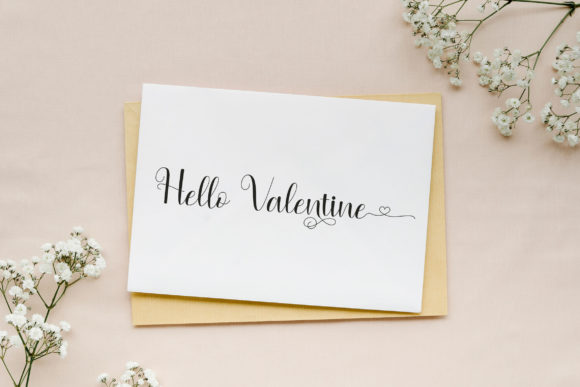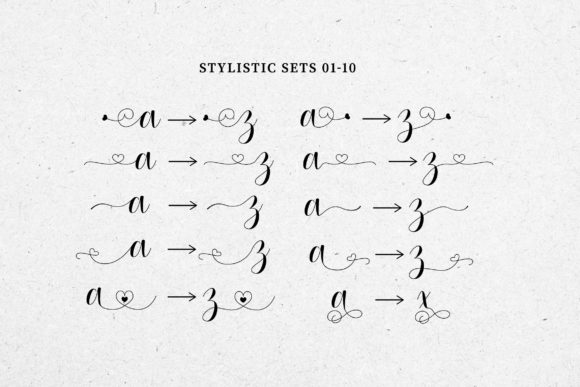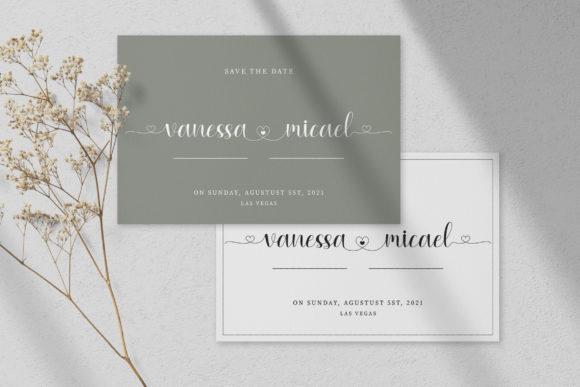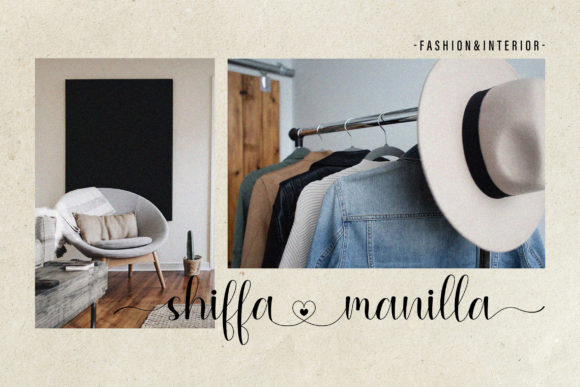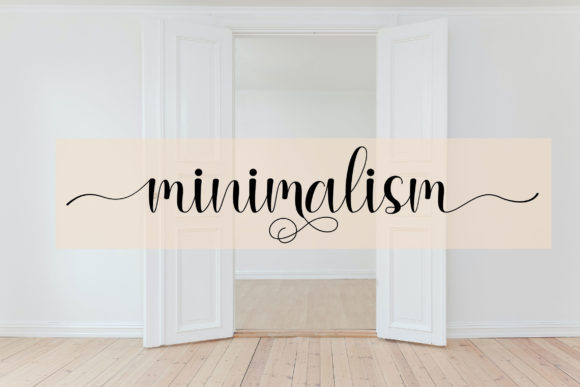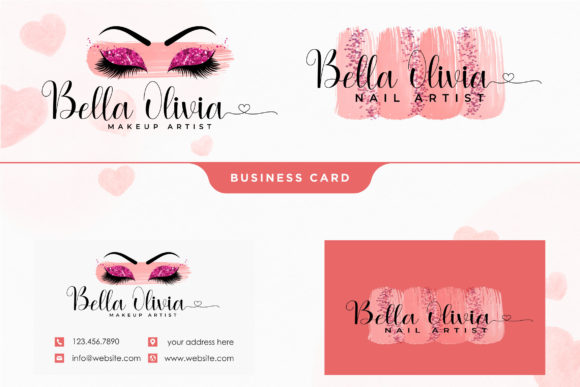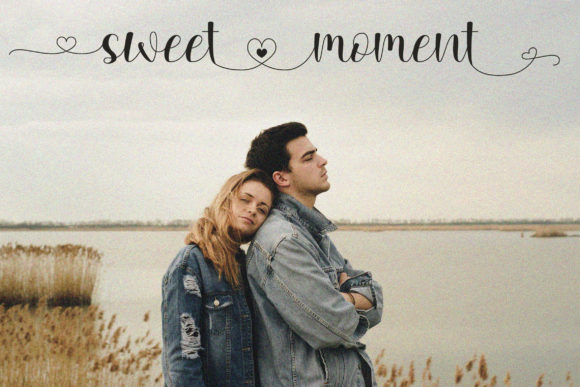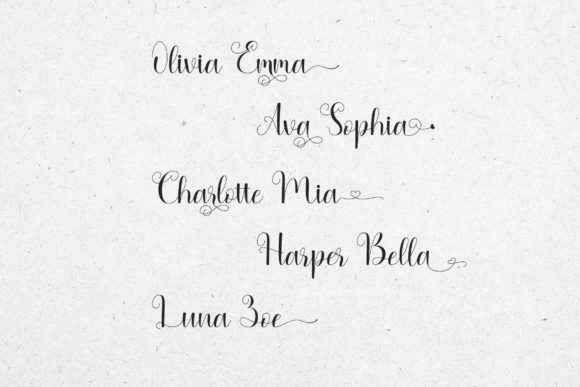
My Lovely Heart Font
About My Lovely Heart Font
My Lovely Heart is a beautiful and refined script font. It has a classy, elegant and modern look that can be used for logos, branding, invitations, stationery, wedding designs, social media posts, and much more! This font is PUA encoded which means you can access all of the glyphs and swashes with ease!